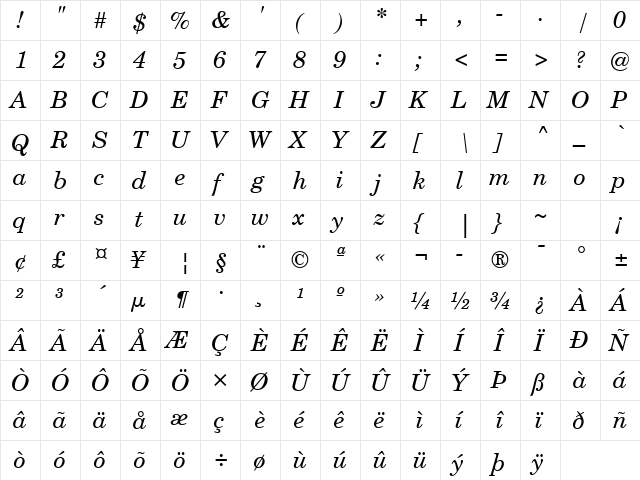
Century Schoolbook SWA Italic Font Preview
Century Schoolbook SWA Italic
Design Context for Century Schoolbook SWA Typeface
Century Schoolbook SWA offers clean, dependable letterforms without strong stylistic allegiance, making it a practical choice for designers who need flexibility. Its italic angle brings a sense of urgency and motion to the letterforms.
Pro Tip: Use Century Schoolbook SWA for emphasis, pull quotes, and subheadings where its slanted energy can add rhythm to the layout.